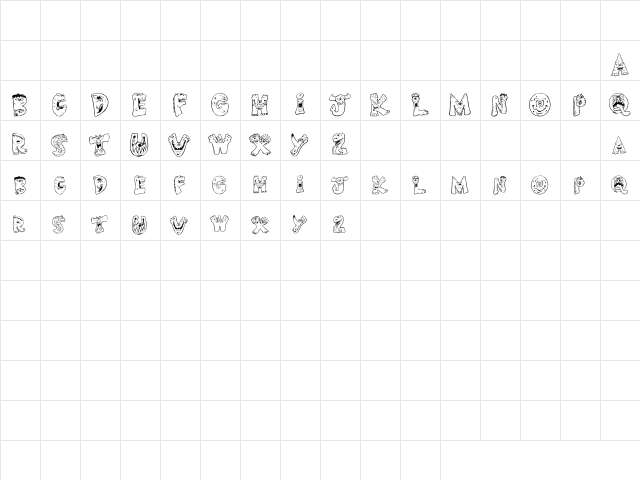
Scary Monsters Regular
Design Context for Scary Monsters Typeface
Scary Monsters carries an unsettling edge — its distorted letterforms are built to unsettle, perfectly suited to horror, Halloween, and dark creative work.
Perfect for anything that needs to unsettle — game titles, horror branding, and macabre invitations.
Font Pairing: Pair with a clean neutral sans-serif for body copy to let Scary Monsters's character lead without overwhelming the composition.
Pro Tip: Use Scary Monsters at larger display sizes for maximum impact. Consider generous tracking to let the disturbing character of each letterform breathe.